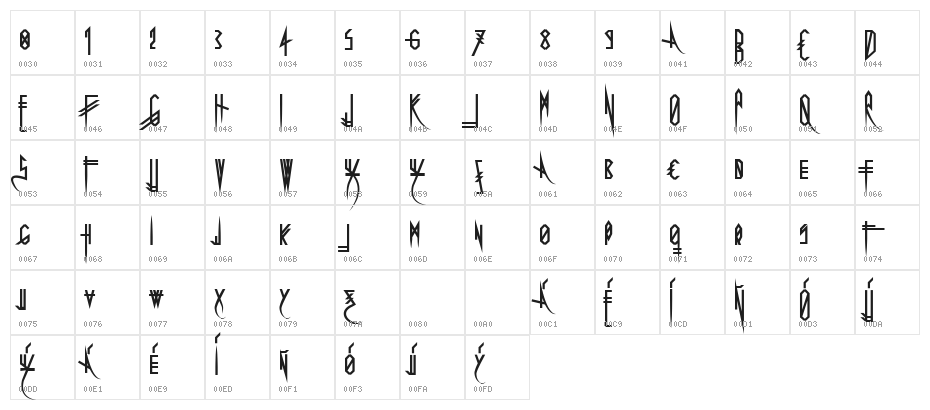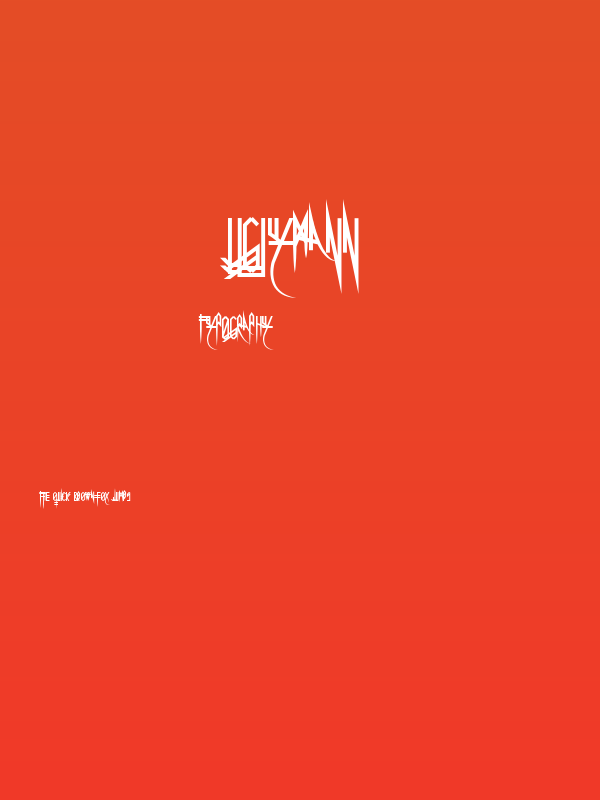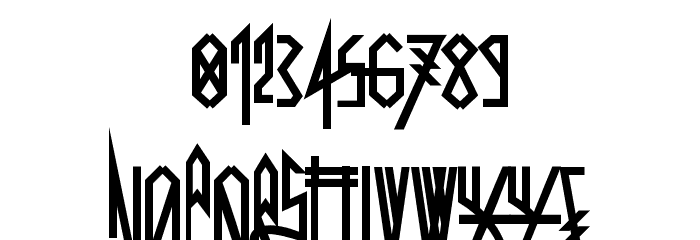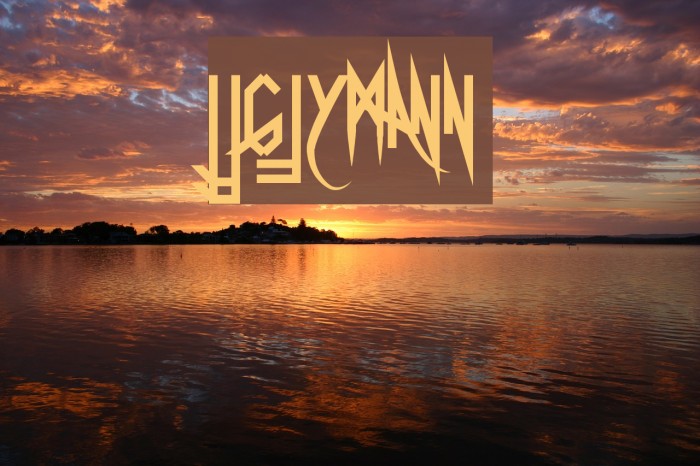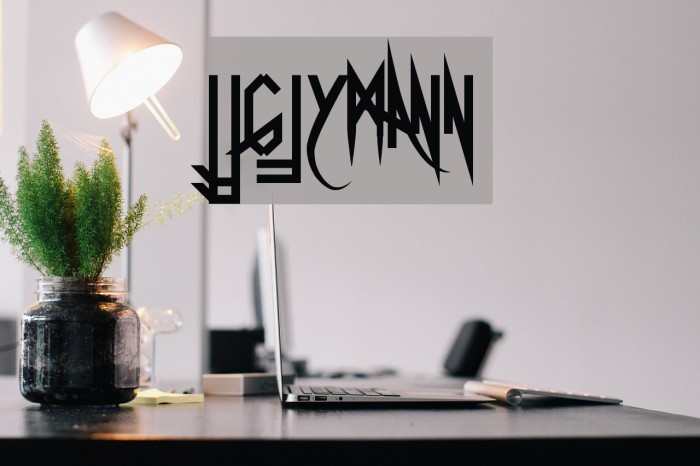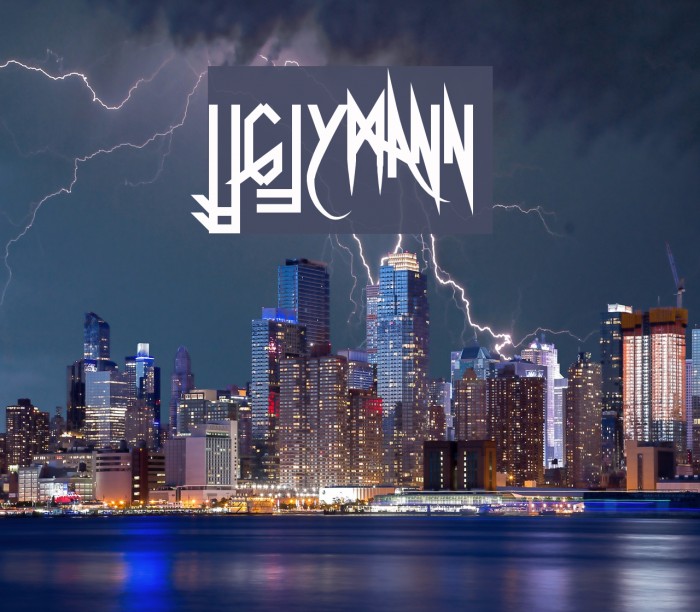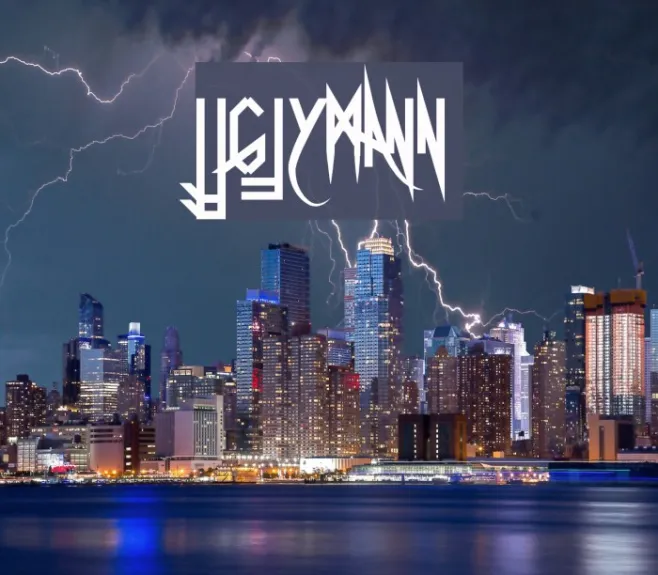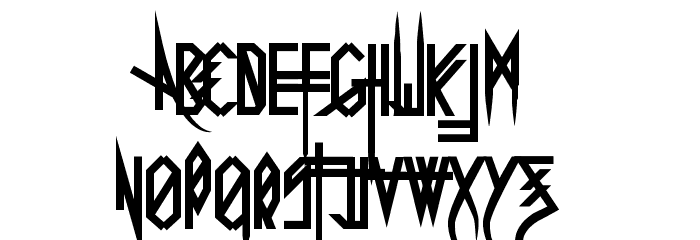
Uglymann Font
Uglymann Description
This font features a highly stylized and angular design, characterized by sharp edges and a geometric structure. The letters are bold and striking, with a unique, almost tribal aesthetic that makes them stand out. The uppercase and lowercase letters share a similar design ethos, with consistent angularity and a sense of movement. Numbers and special characters are equally bold, maintaining the overall theme. The font's distinctive style is both modern and edgy, making it suitable for projects that require a strong visual impact.
| Overall Style | Modern, Edgy |
| Use Case | Logos, Posters, Album Covers |
| Proposed Projects | Ideal for album covers, posters, branding for edgy or alternative products, and any design needing a strong, unique visual identity. |